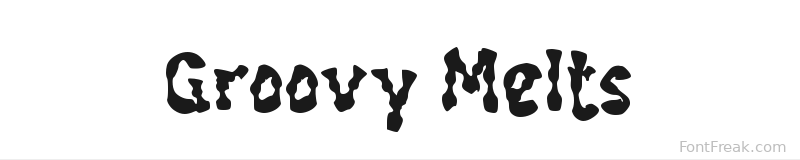
Groovy Melts
Groovy Melts by Wahyu Eka Prasetya is a captivating display font that embodies a playful, retro vibe, perfect for a variety of creative applications. This unique typeface showcases a distinctive, melted letterform style that evokes a sense of fun and nostalgia. The strokes are irregular and fluid, contributing to its whimsical character while maintaining a bold presence. The font features a medium stroke weight with minimal contrast, allowing for easy readability while still making a striking visual statement. The spacing is thoughtfully designed, ensuring that each letter flows seamlessly into the next, creating a cohesive look that is both engaging and eye-catching.
Groovy Melts is particularly well-suited for use in vibrant projects such as wedding invitations that aim for a laid-back yet stylish aesthetic, movie posters that seek to capture attention with a unique flair, restaurant menus that want to convey a fun and relaxed atmosphere, and promotional materials for events or festivals that require a lively touch. The font's charm makes it ideal for graphic designers, small business owners, and content creators looking to add a playful element to their branding or projects.
What sets the Groovy Melts font apart is its ability to convey personality and emotion through its design. It invites creativity and encourages a sense of joy, making it a fantastic choice for anyone looking to stand out in a competitive space. With its availability as a freeware, you can easily access the Groovy Melts font free download, allowing you to elevate your designs without breaking the bank. Its delightful aesthetic and versatile applications make it a must-have for any designer's toolkit.